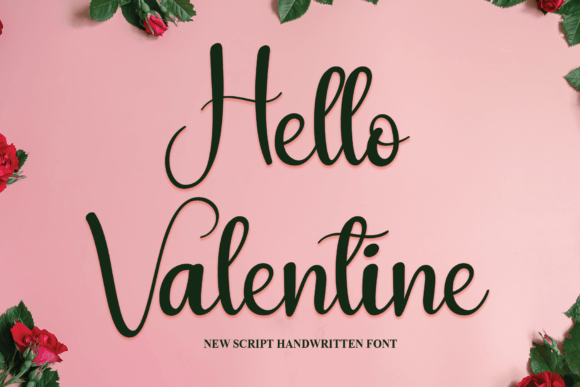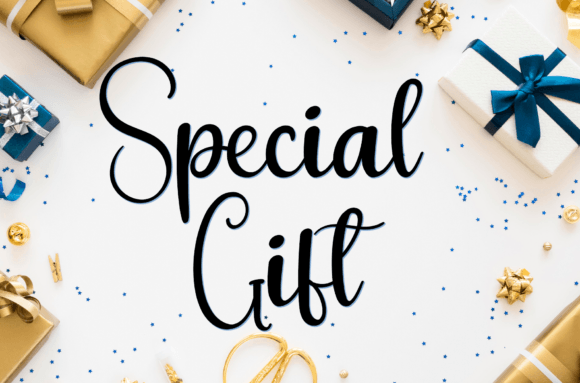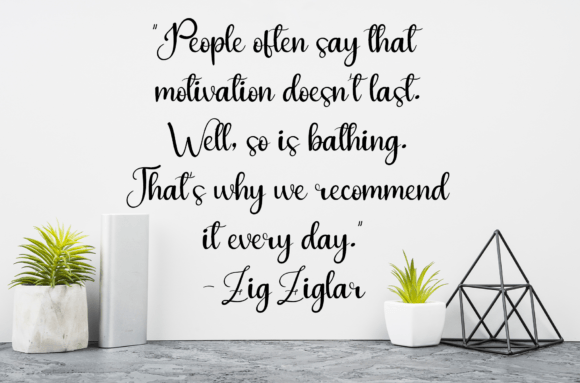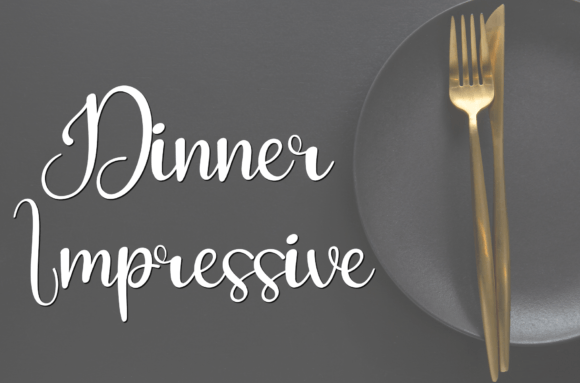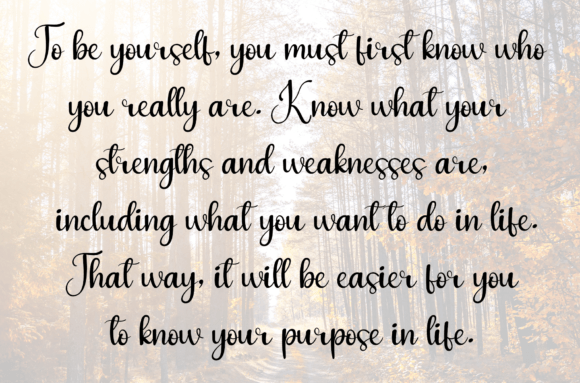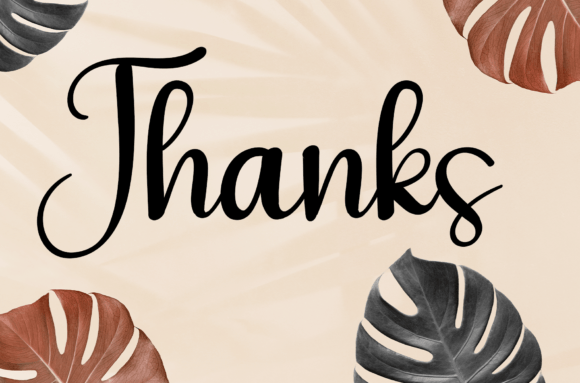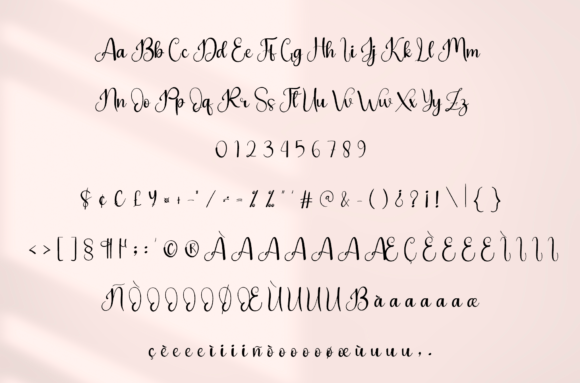
Hello Valentine Font
About Hello Valentine Font: A Fun and Friendly Handwritten Typeface
Hello Valentine font offers a lively and charming handwritten style that adds warmth and personality to any creative project. This font’s friendly and approachable nature makes it perfect for a wide range of uses. Whether you’re working on crafts, digital design, presentations, or greeting cards, Hello Valentinefont can quickly become your favorite choice.
Perfect for Craft Projects
Hello Valentinefont brings a personal, handmade feel to craft projects. Its playful yet legible letters make it easy to add a creative touch to scrapbooks, DIY cards, and other handmade items. The font’s inviting style helps convey warmth and sincerity.
Ideal for Digital Design and Presentations
When used in digital design and presentations, Hello Valentinefont provides a fun and engaging look. It balances professionalism with a friendly vibe, making your slides, graphics, and social media posts more appealing and relatable to viewers.
Great for Greeting Cards and Invitations
This font shines in greeting cards and invitations. Its cheerful and soft strokes create an emotional connection, enhancing messages for Valentine’s Day, birthdays, or any special occasion. Hello Valentinefont adds a heartfelt touch to your designs.
Why Choose Hello Valentine Font?
With its perfect blend of fun and friendliness, Hello Valentinefont is a versatile choice for various design projects. It ensures readability while adding charm, making it a valuable asset for your creative toolkit.